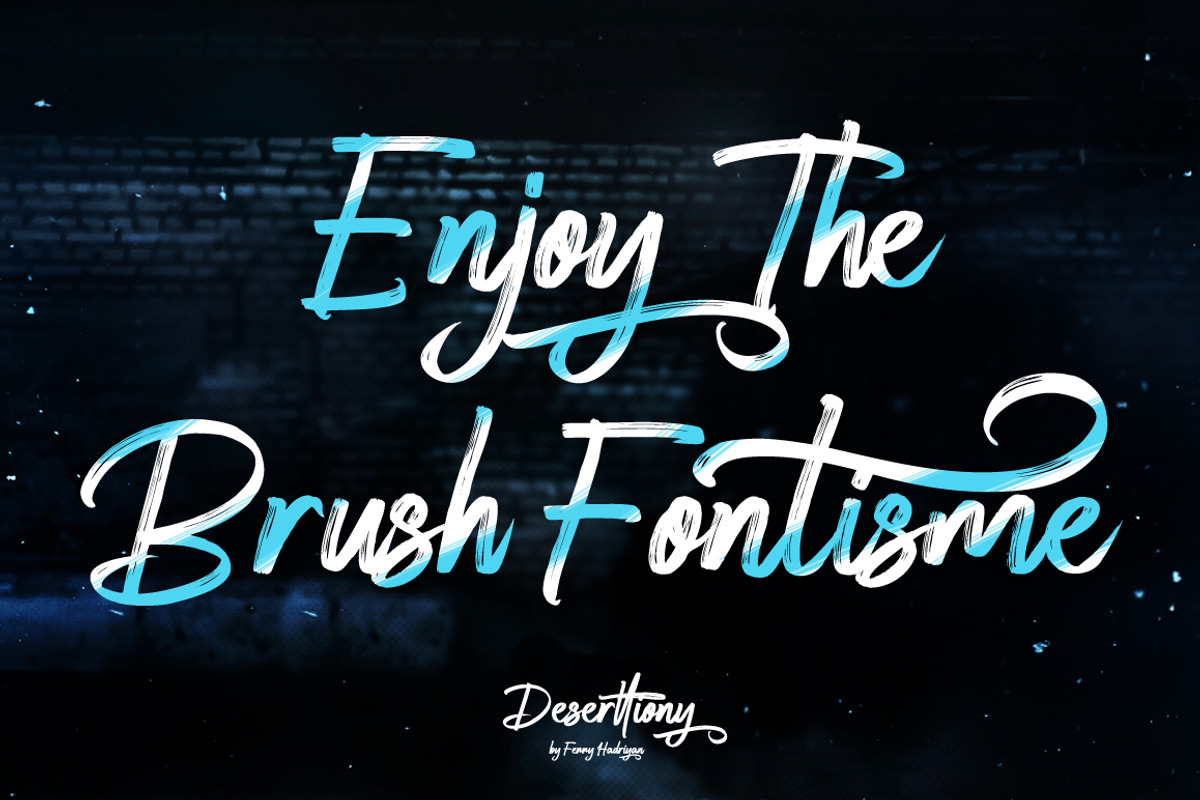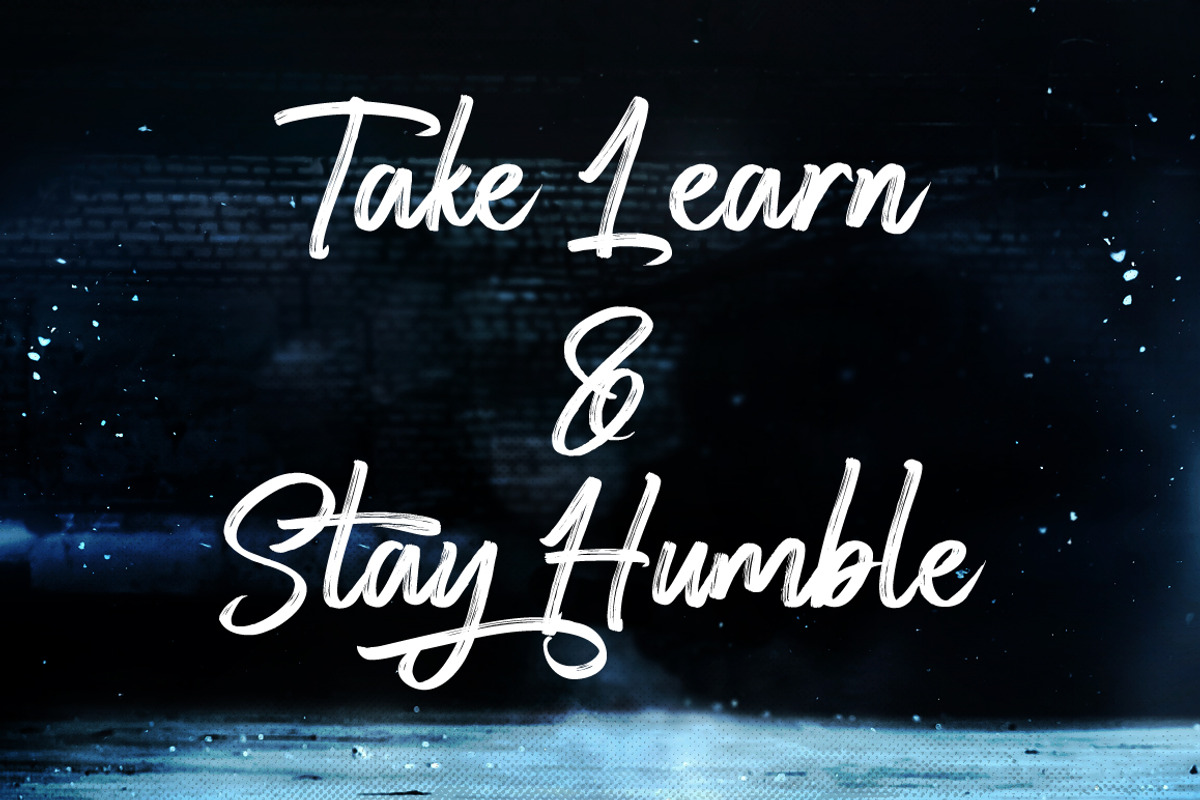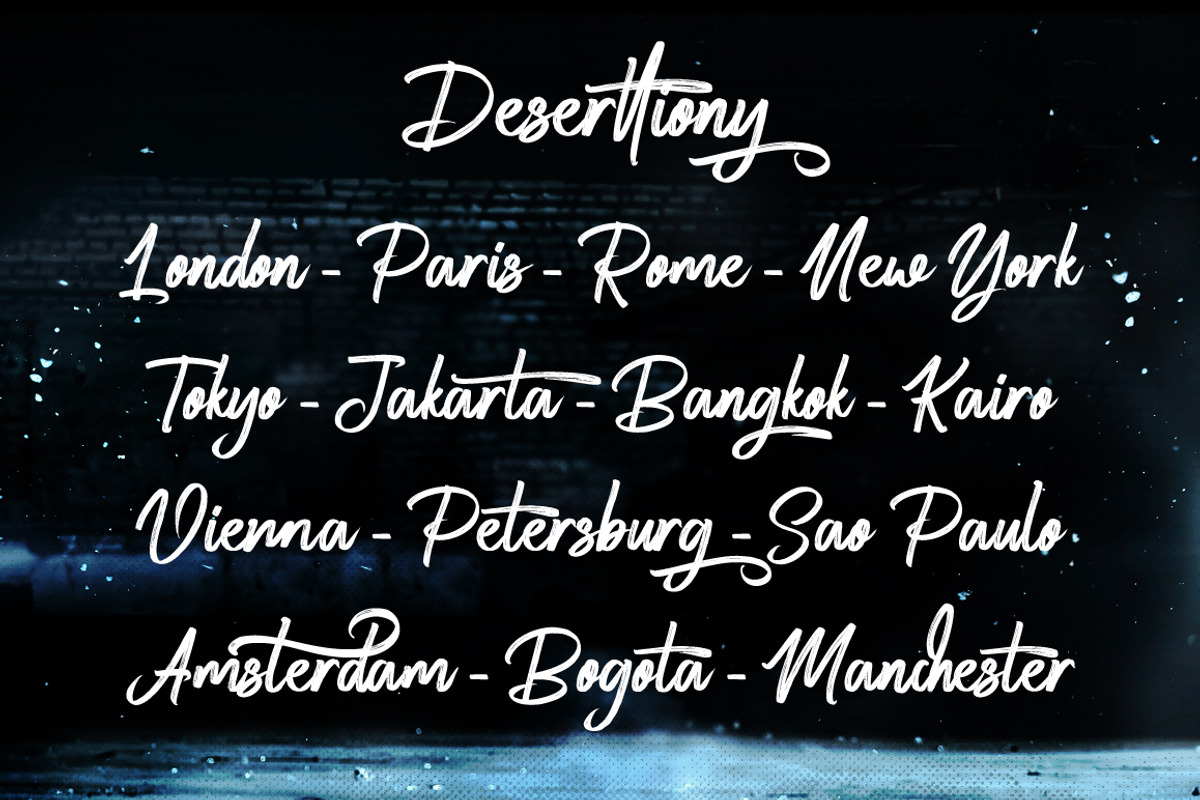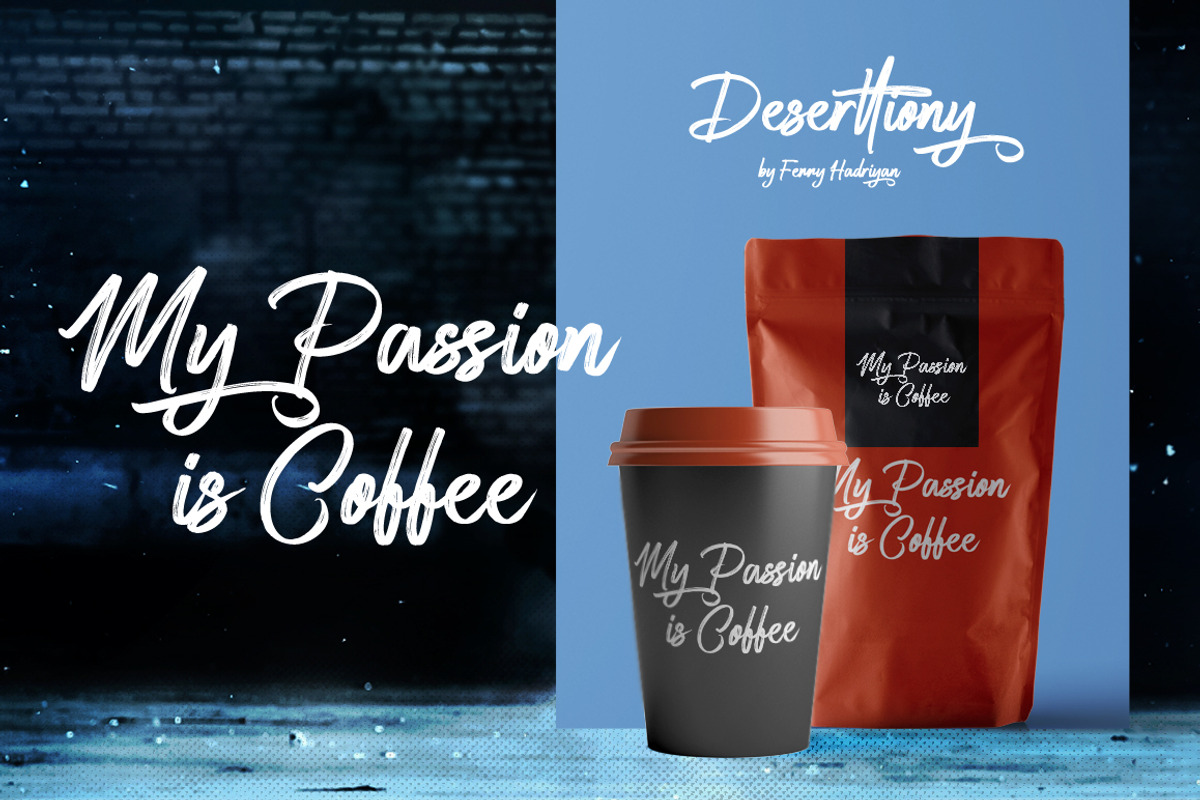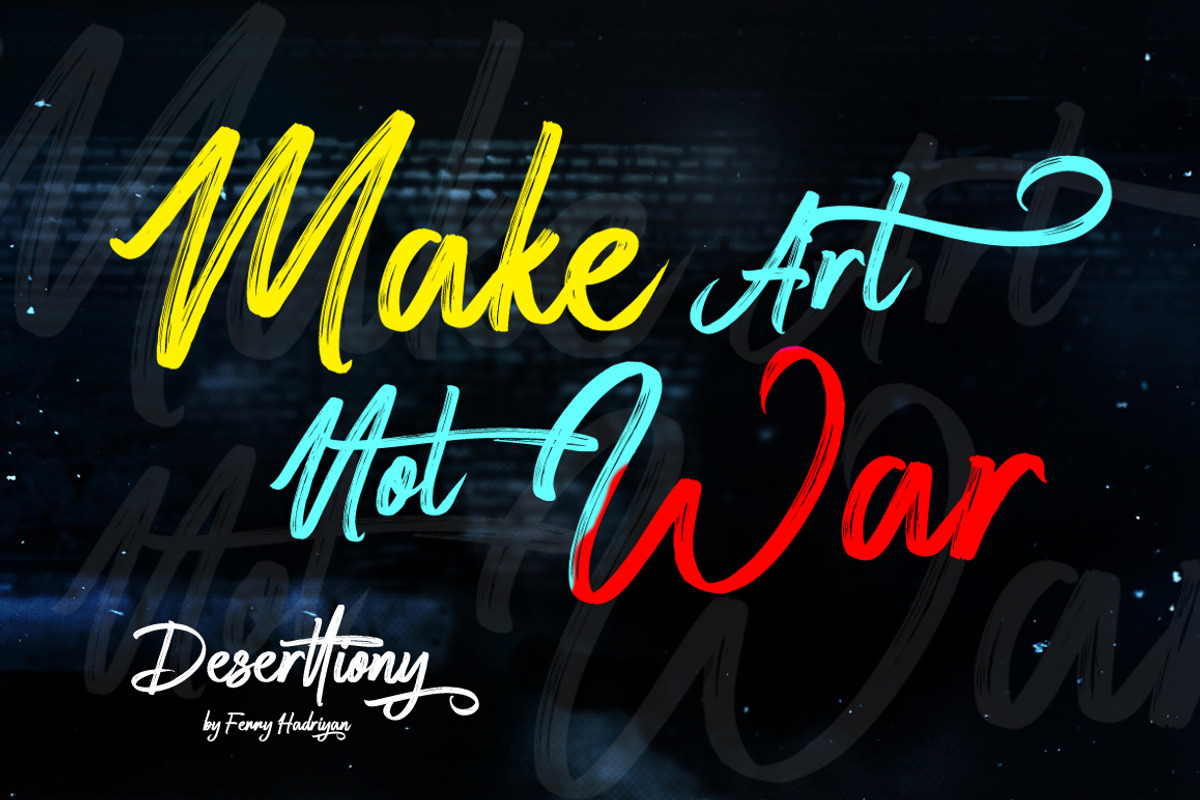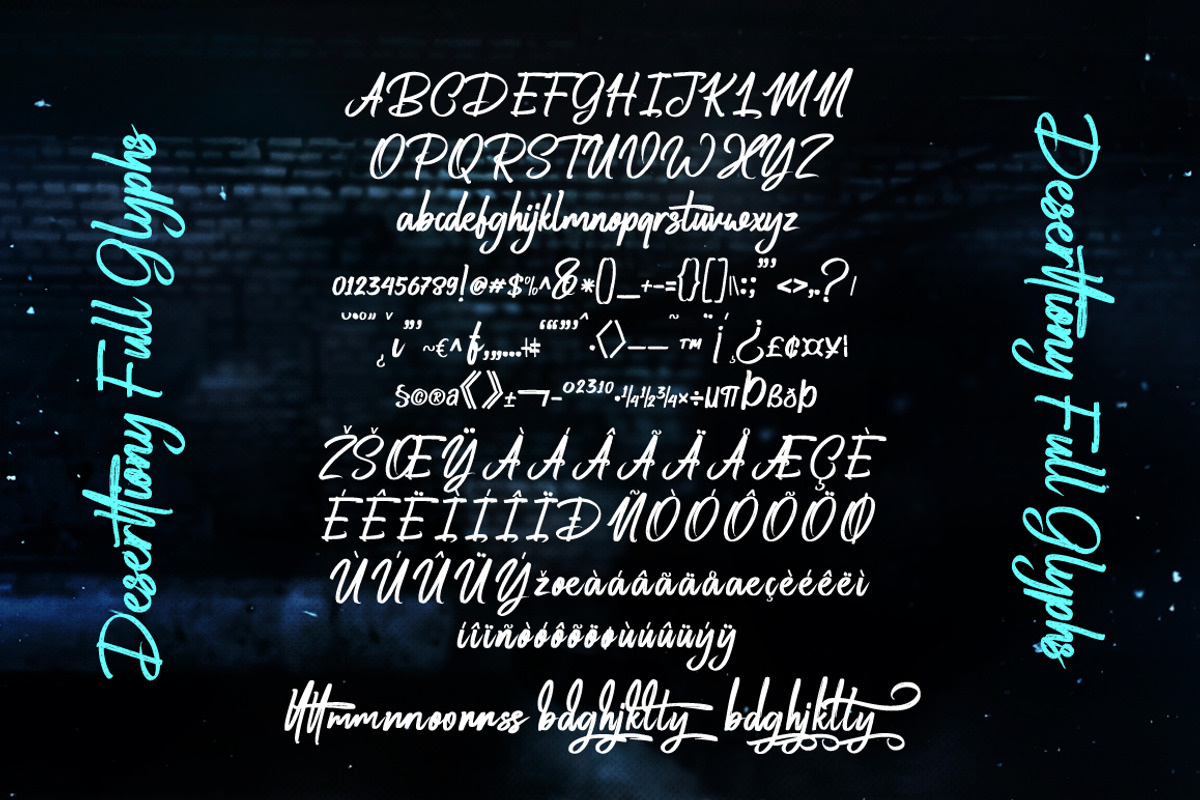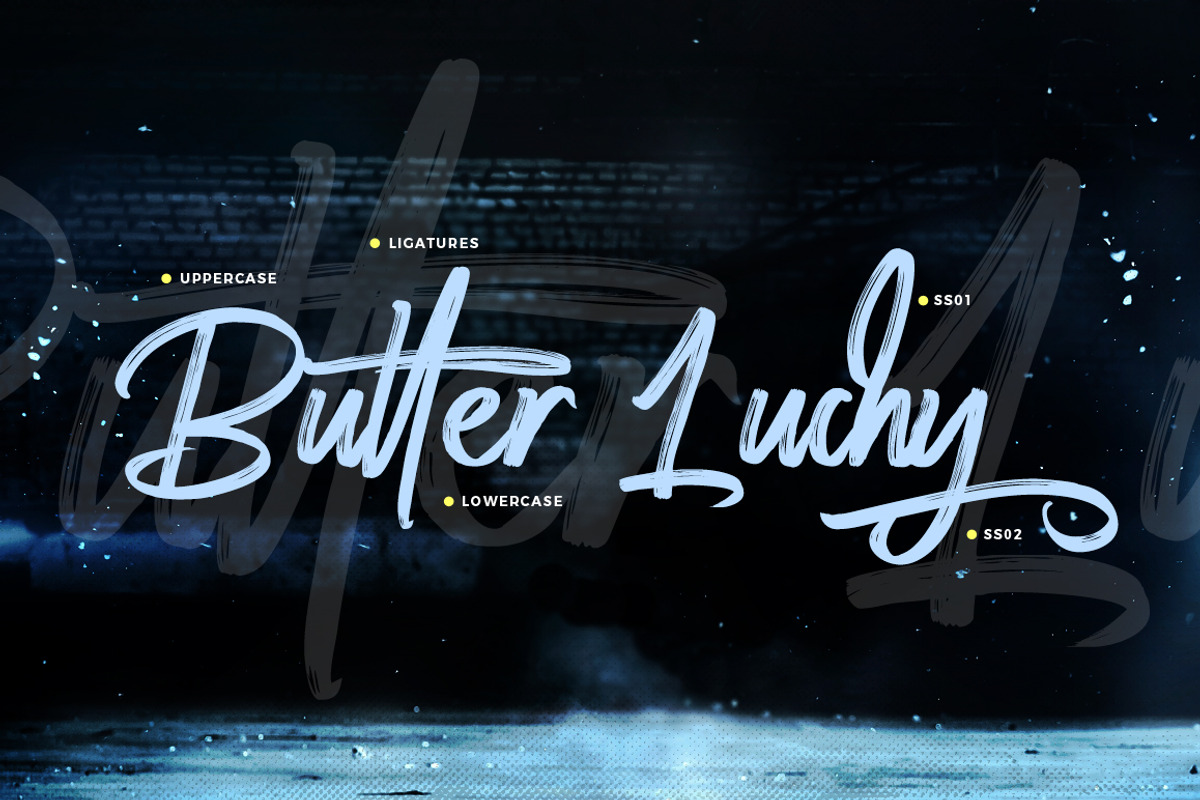
Deserttiony - Handwritten Font
Deserttiony is script font with handlettering brush style, with opentype feature include of the font. Suitable for design, element design, wedding, event, t-shirt, logo, badges, sticker, and awesome work, etc...
All Standard Character, Symbol, Multilanguage, Ligature, Stylistic Set, and Swashes.
Deserttiony - Handwritten Font by FHFont fits naturally into Branding, posters, packaging, typography.